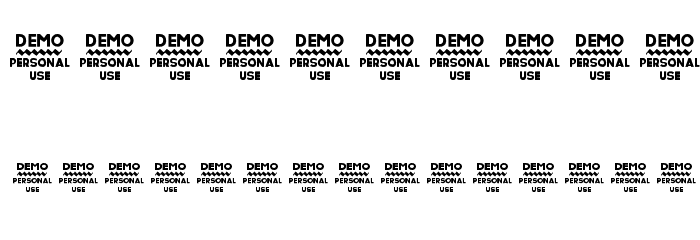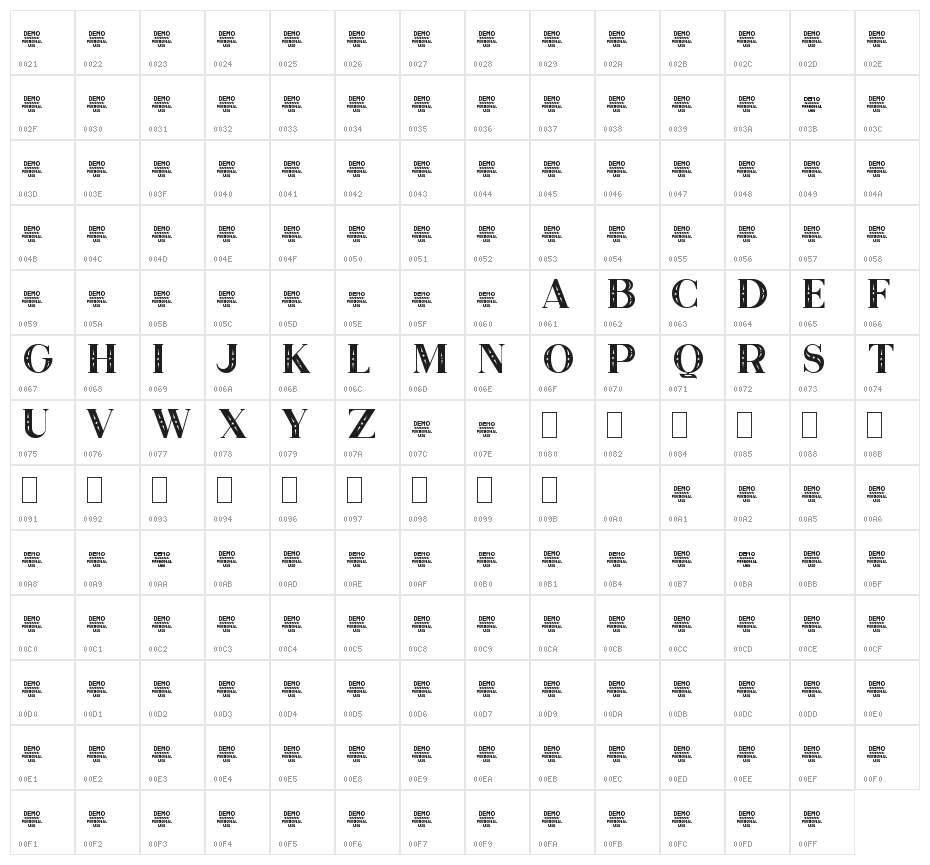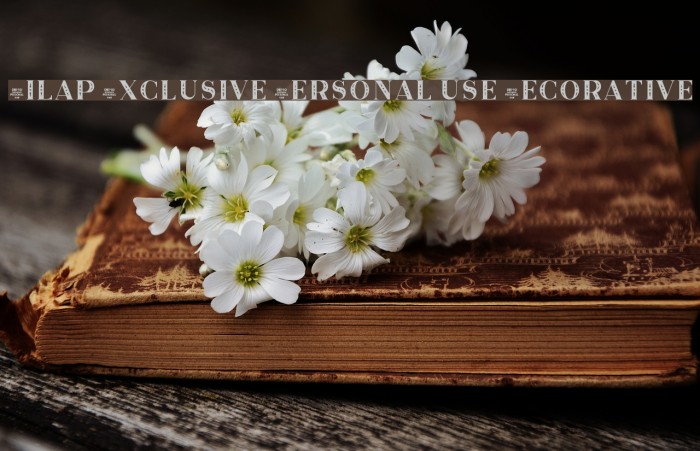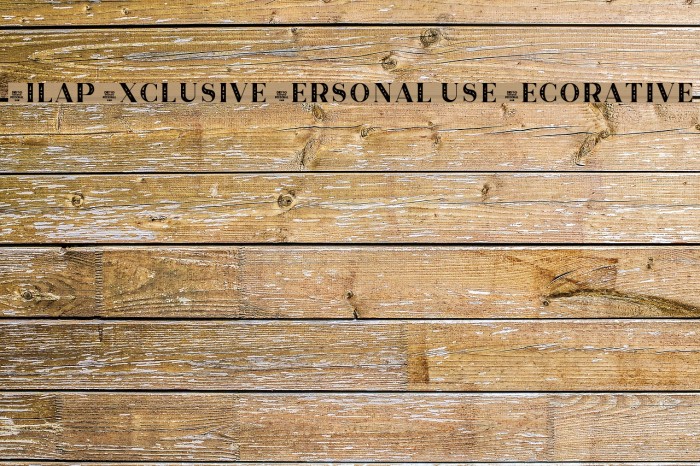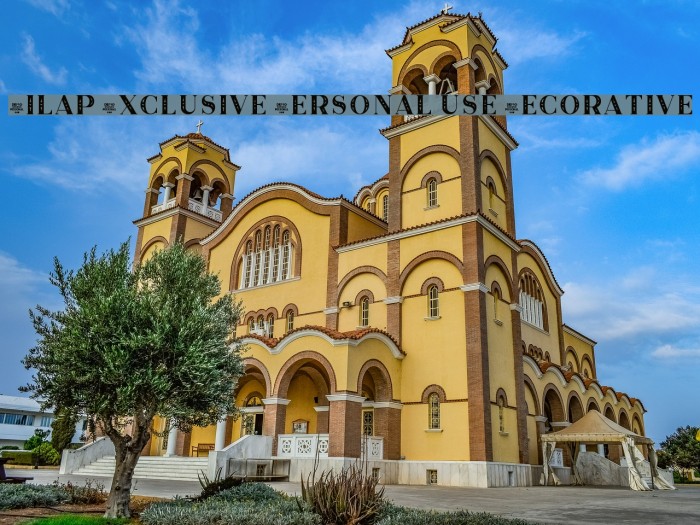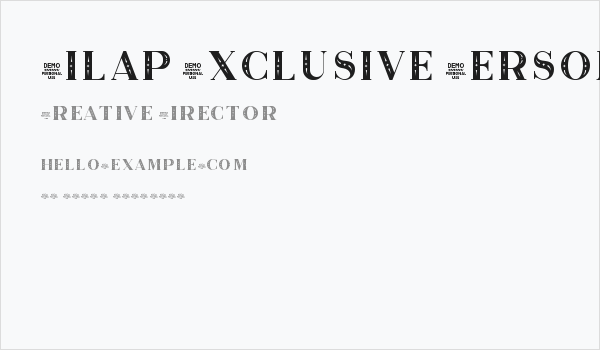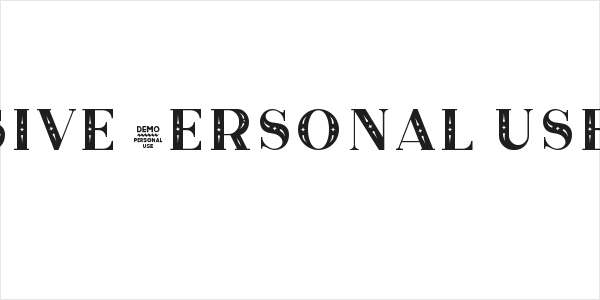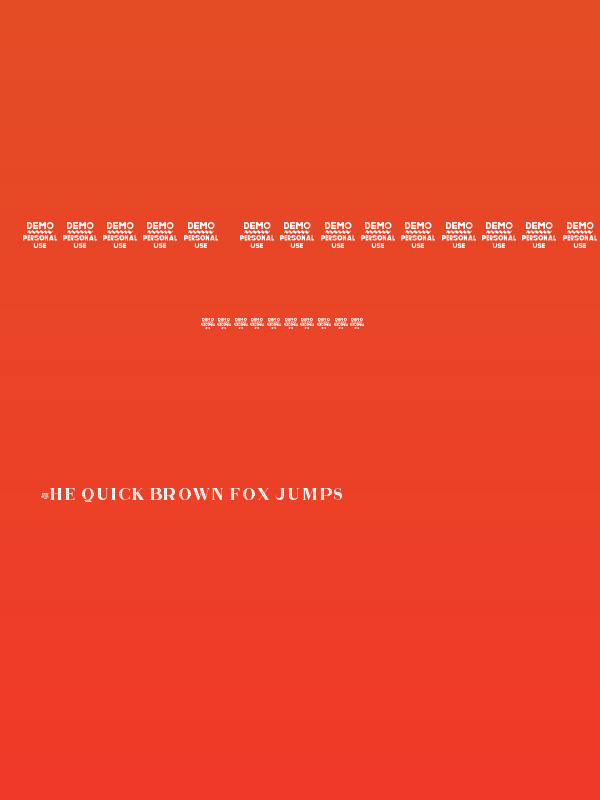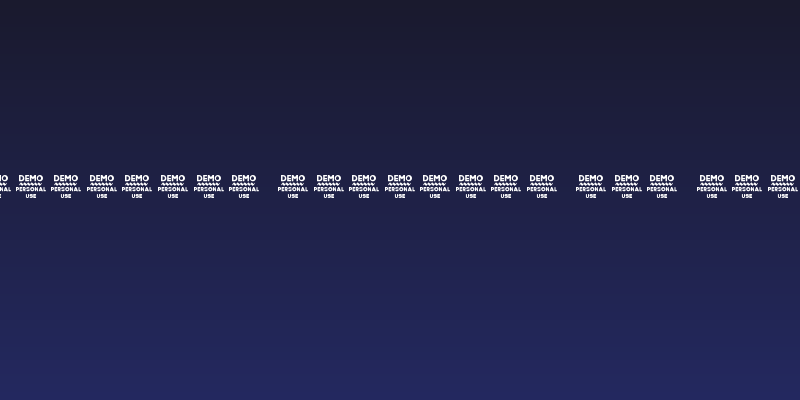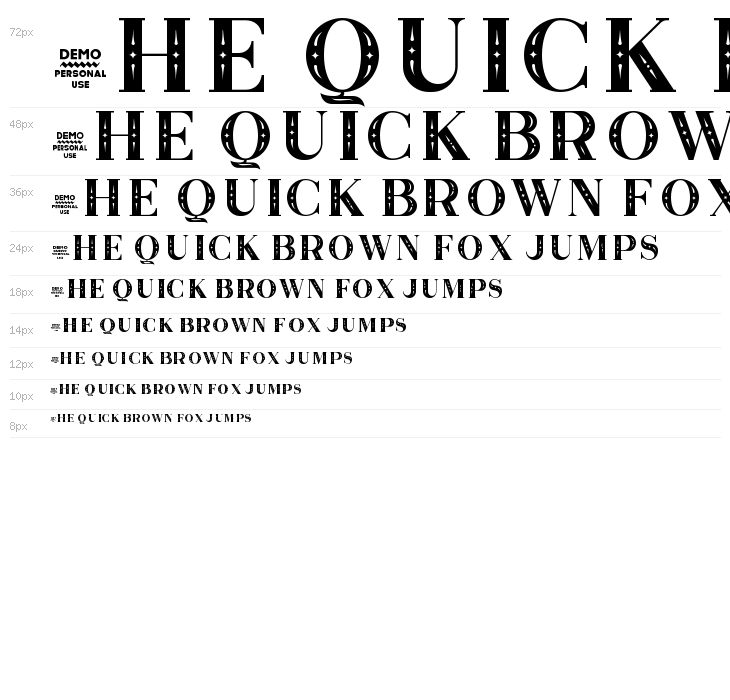
Zilap Exclusive Personal use Decorative Font
Zilap Exclusive Personal use Decorative Description
This font features a bold and decorative style, characterized by its unique cut-out patterns within each letter. The uppercase letters are particularly striking, with a strong presence and artistic flair. The design incorporates geometric shapes and star-like cutouts, adding a playful yet sophisticated touch. This font is ideal for projects that require a distinctive and eye-catching typeface, such as posters, branding, and creative designs. Its boldness ensures it stands out, while the decorative elements provide a sense of elegance and creativity.
| Proposed Projects | Ideal for posters, branding, creative designs, and any project needing a distinctive typeface. |